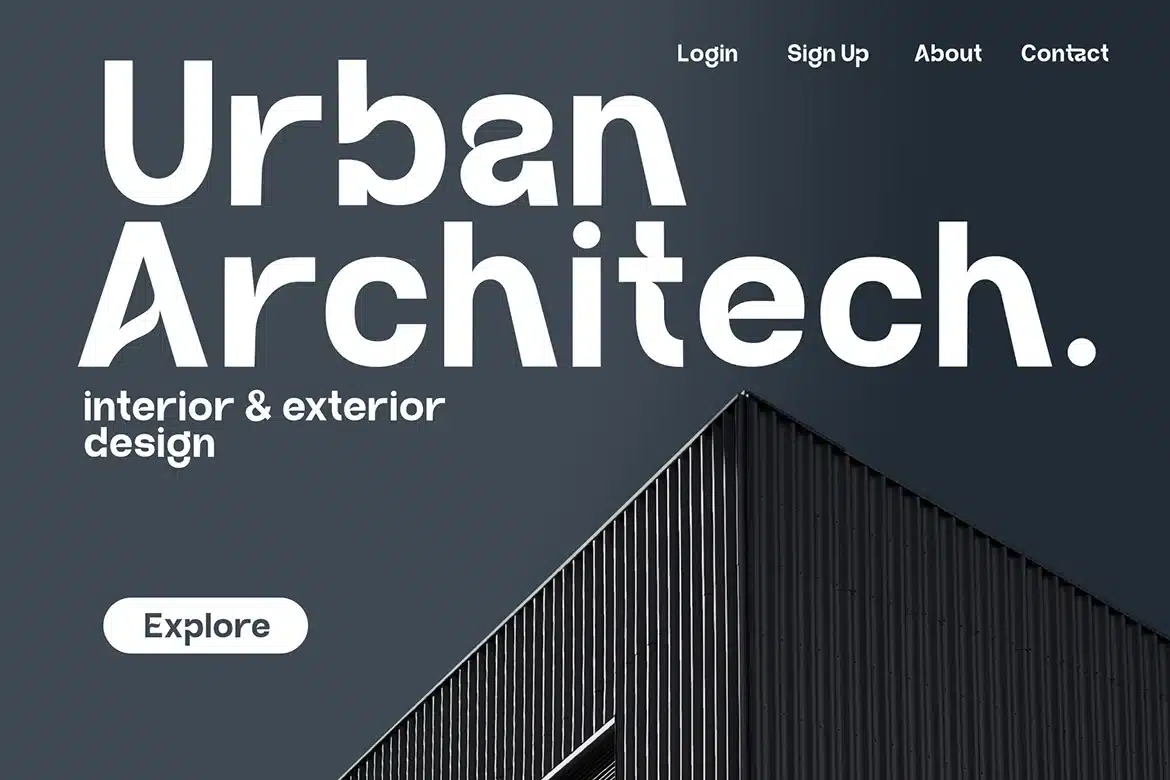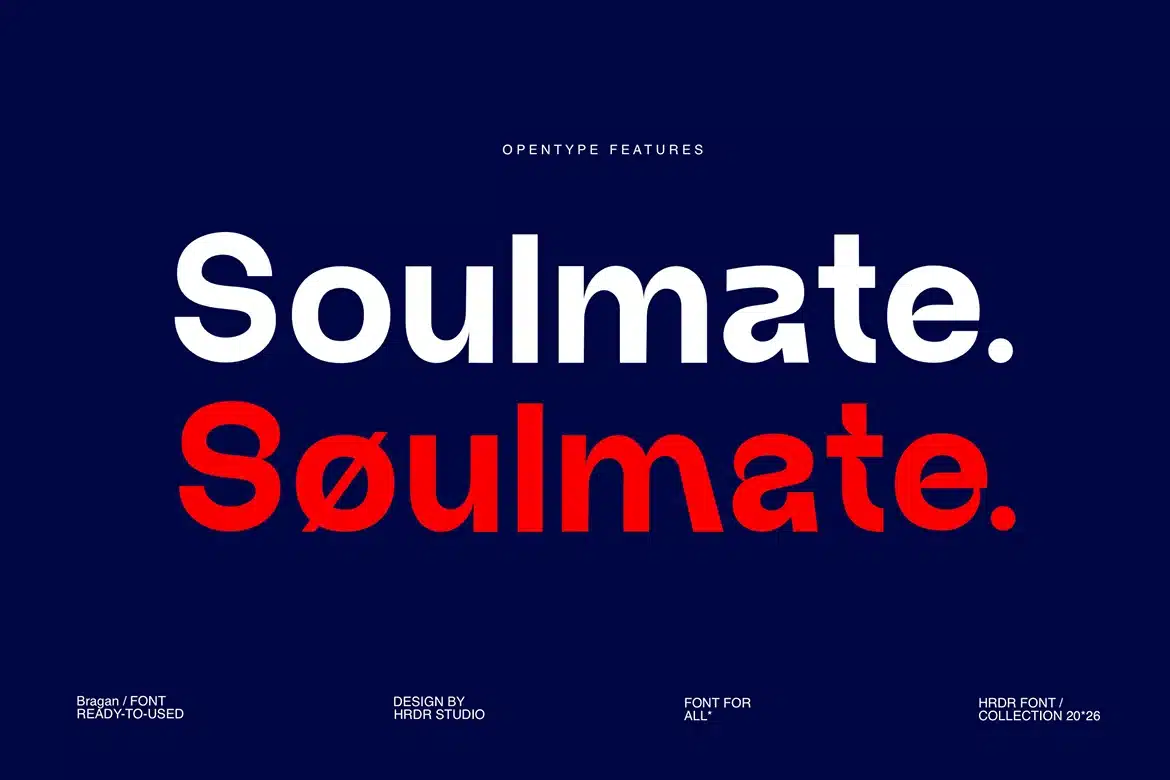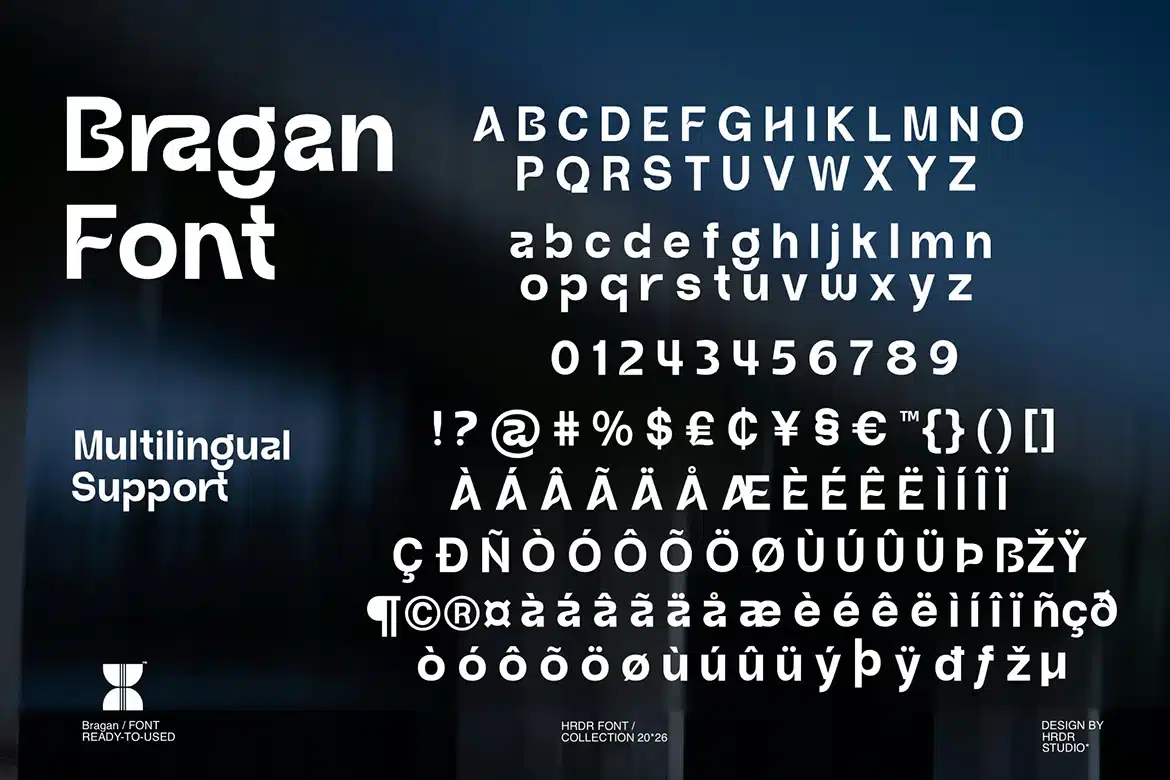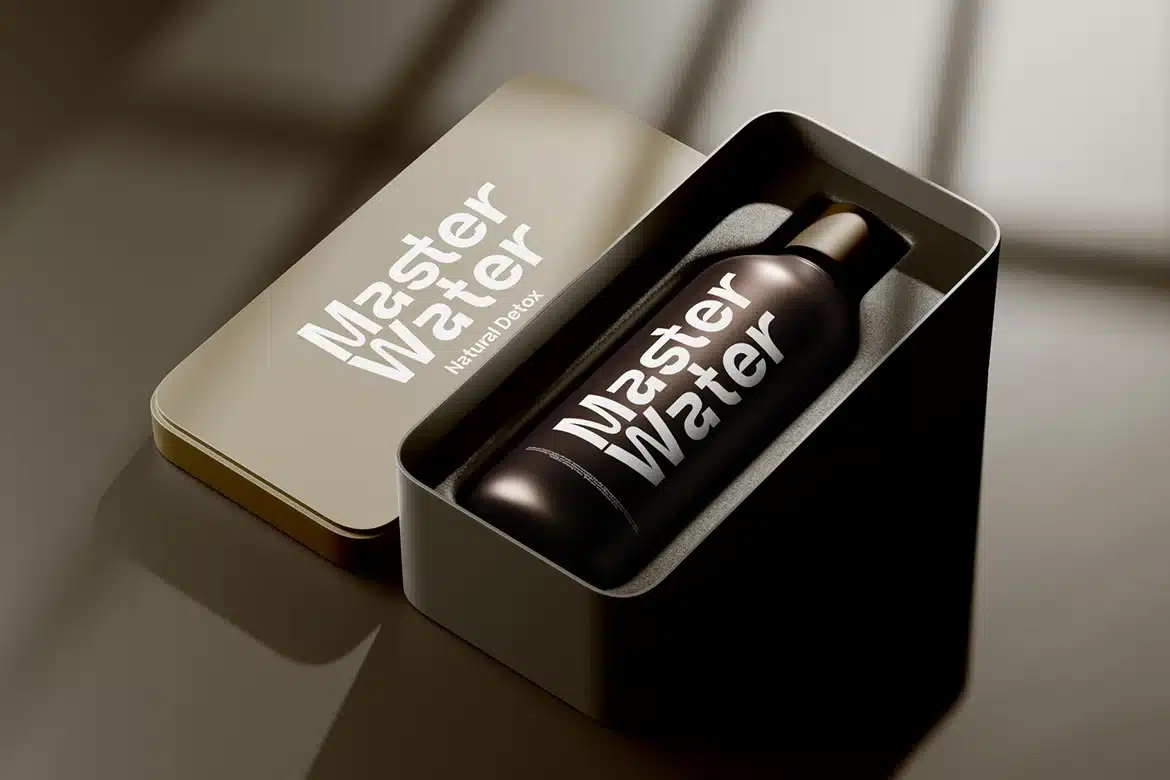
Bragan Font
Embrace a contemporary aesthetic with Bragan, a versatile type style ideal for logos, branding, film production, and more. Bragan allowing extensive creative flexibility for any project.
With Bragan, achieve an elegant yet strong visual identity suitable for various applications, from motion graphics to packaging.
- Uppercase and Lowercase
- Numeric and Multilingual support
- Ligatures for effortless connection
- Stylistic Alternates with Ss01 & Ss02 for creativity and customization